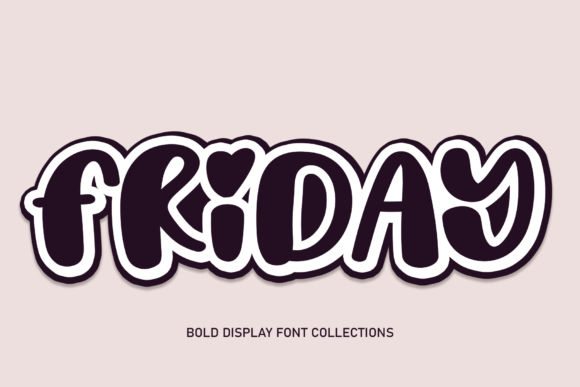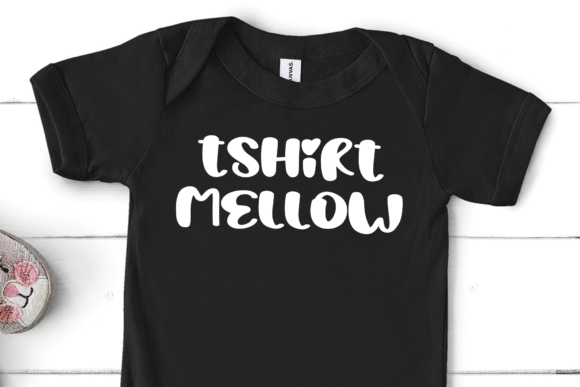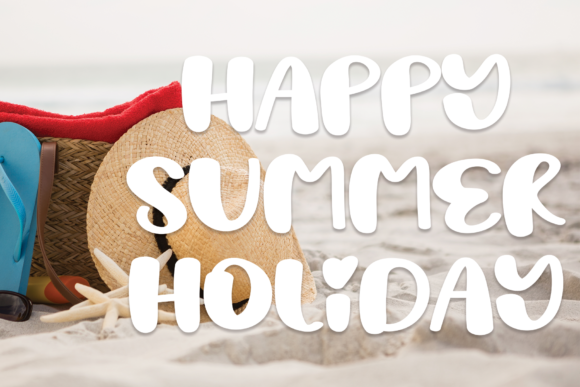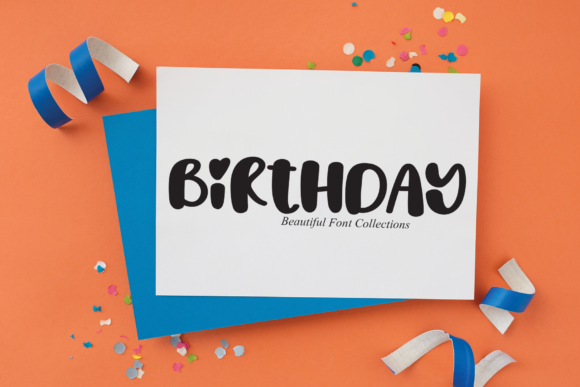
Frida Font
About the Frida Font
Introducing the Frida Font, a beautifully crafted typeface designed to elevate your creative projects. Frida is a decorative font inspired by Latin American artists since their paintings and stories inspire the imagination. I was personally inspired by the colours on Frida Kahlo’s hair and paintings, as well as and the flower rain on Garcia Marquez’s magic realism stories. Frida is a decorative, hand-made font made to give the opportunity to artists all around to celebrate Latin American culture in their own way.
Frida’s bold, expressive forms make it ideal for headlines, short text blocks on posters, and branding elements where a vibrant, artistic feel is desired. It works exceptionally well for projects celebrating Latin American culture or themes of art and creativity. However, its decorative nature makes it unsuitable for body text or UI elements requiring high readability.
Consider pairing Frida with a clean sans-serif like Montserrat for a balanced contrast, or a more playful script font like Pacifico to enhance its whimsical energy. For a sophisticated approach, a geometric sans-serif such as Roboto would create visual interest while maintaining legibility.
The overall personality of Frida is bold, passionate, and celebratory. Its handcrafted quality lends an authentic, artistic touch to any design.
Frida Font Usage Examples
Frida Font Example